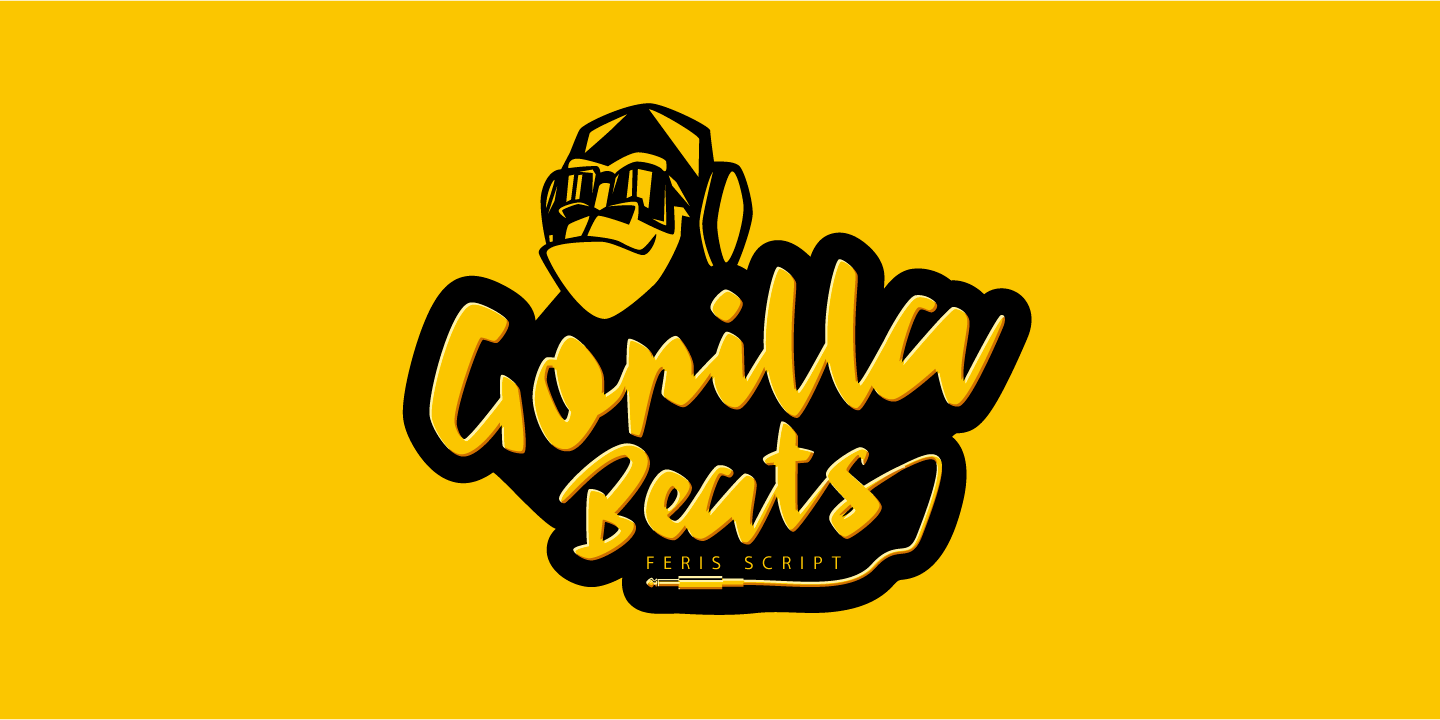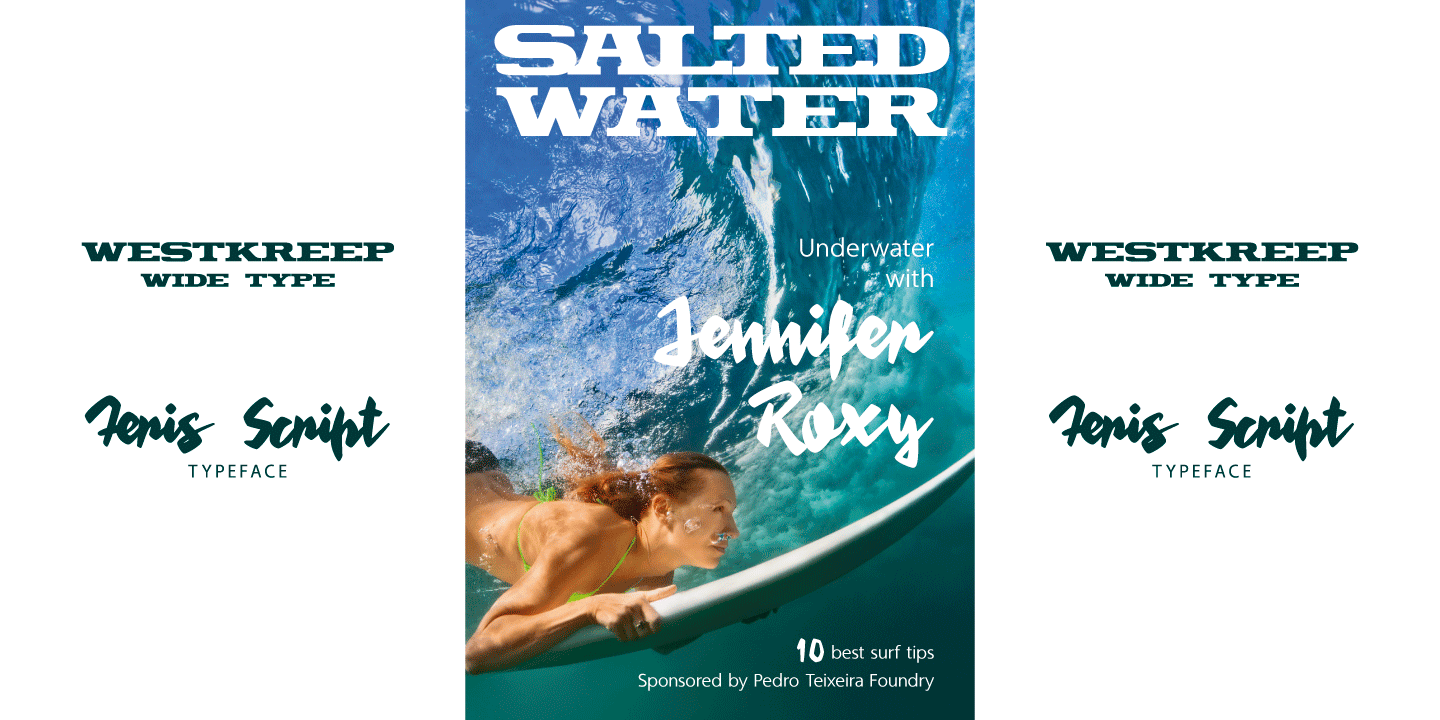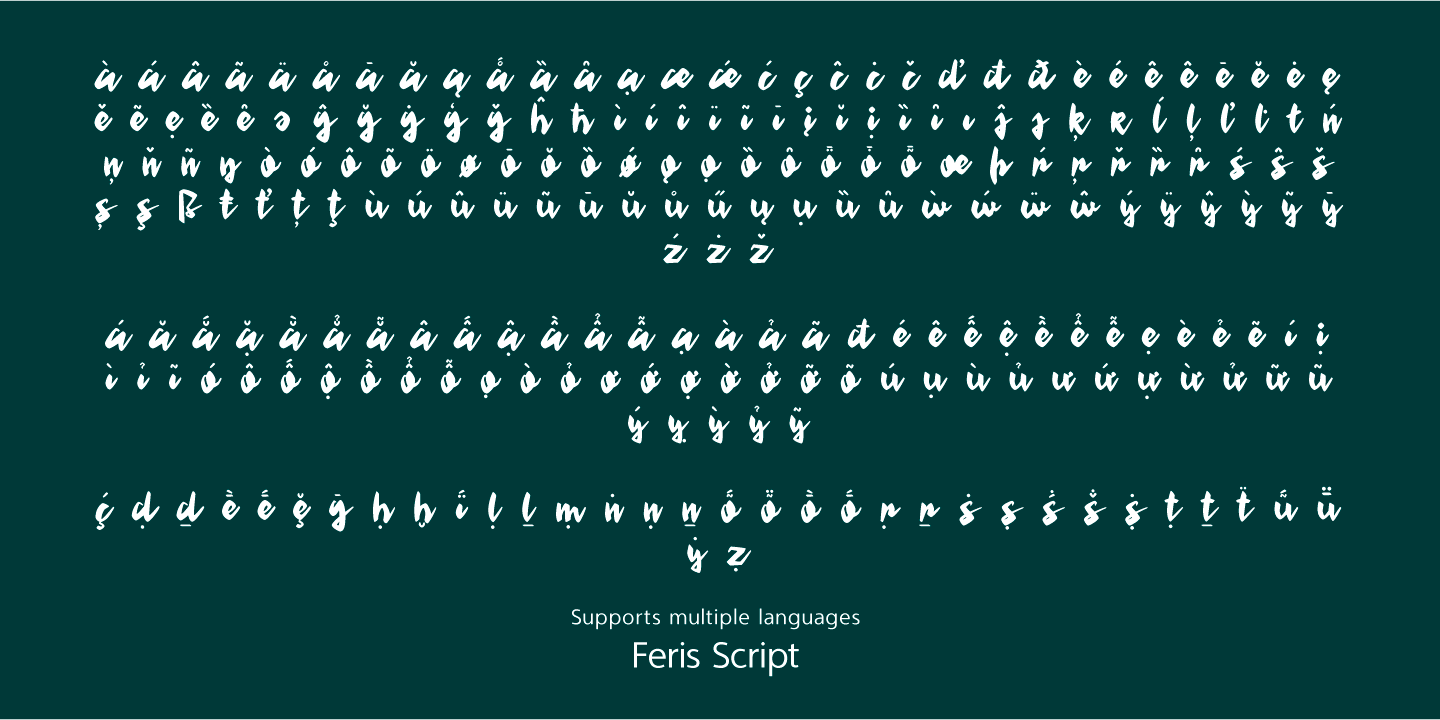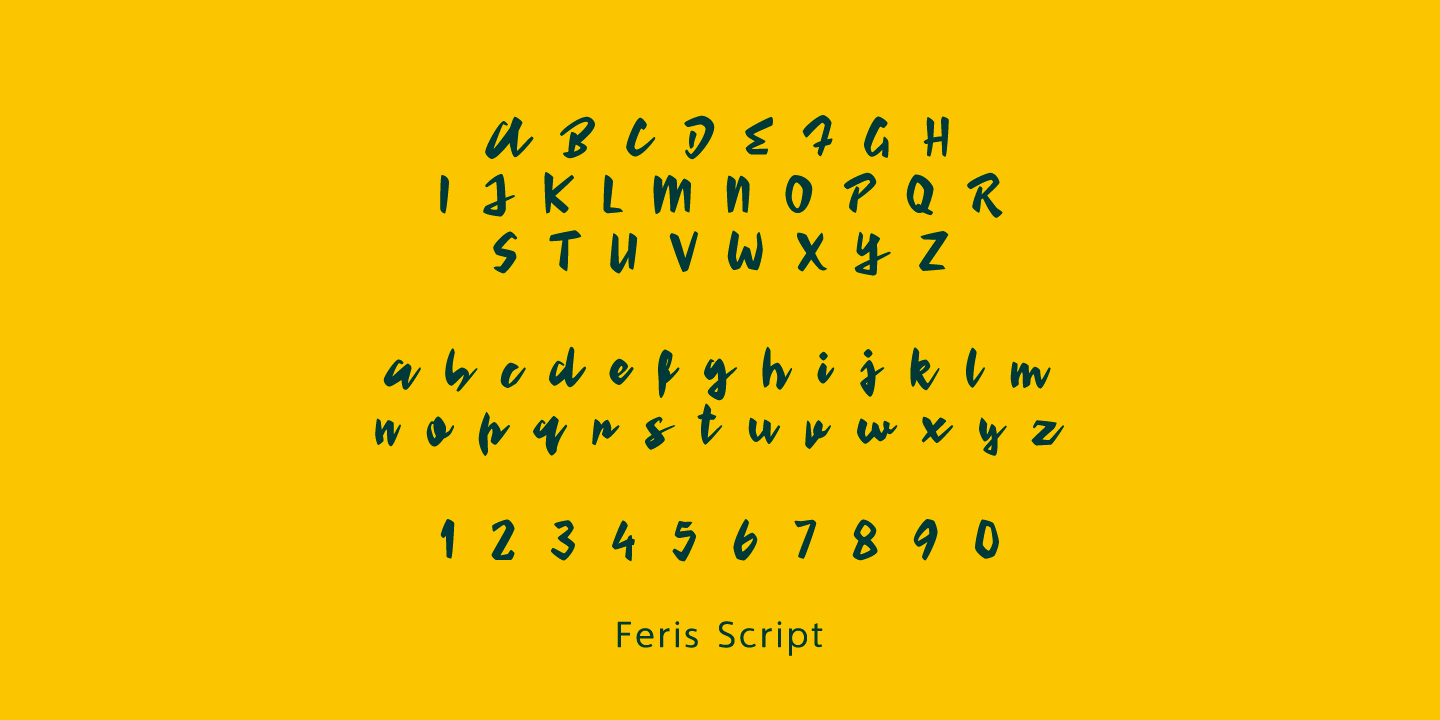
Feris Script
Font Family by Pedro Teixeira Type Foundry
Feris Script is a cool typeface, unexpected and informal, good for logos or to add personality to designs